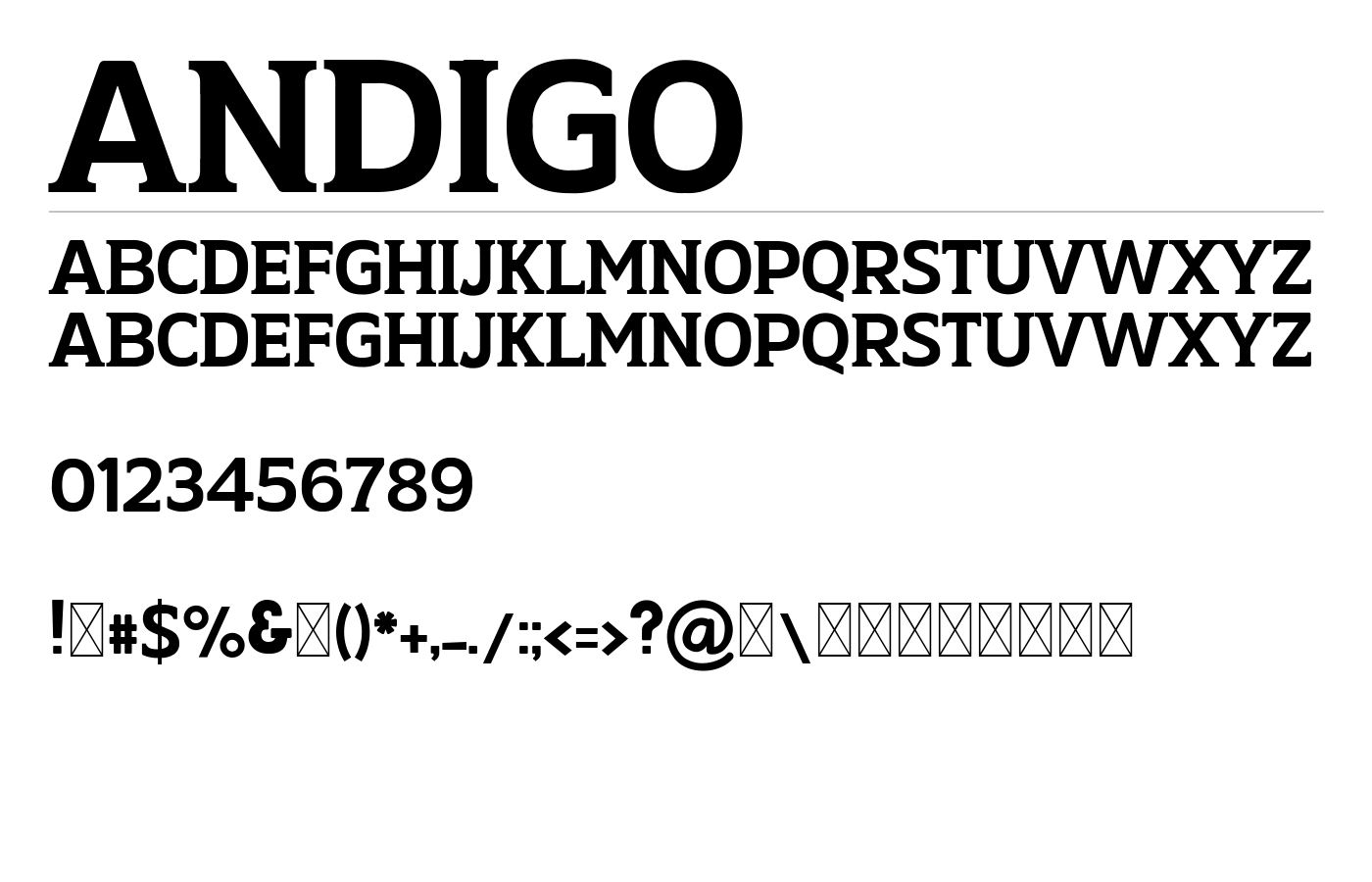
ANDIGO is a bold, slab serif font with strong, sturdy letterforms and medium contrast between thick and thin strokes. Its geometric structure combined with squared-off serifs gives it a confident, modern appearance that works well for headlines, logos, and branding where a sense of solidity and professionalism is desired. This typeface is ideal for editorial design, packaging, and fashion branding that aims to communicate authority with a contemporary edge.
ANDIGO Font